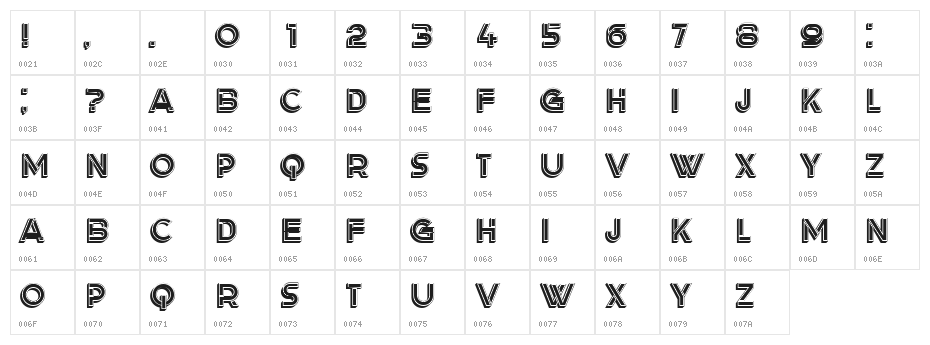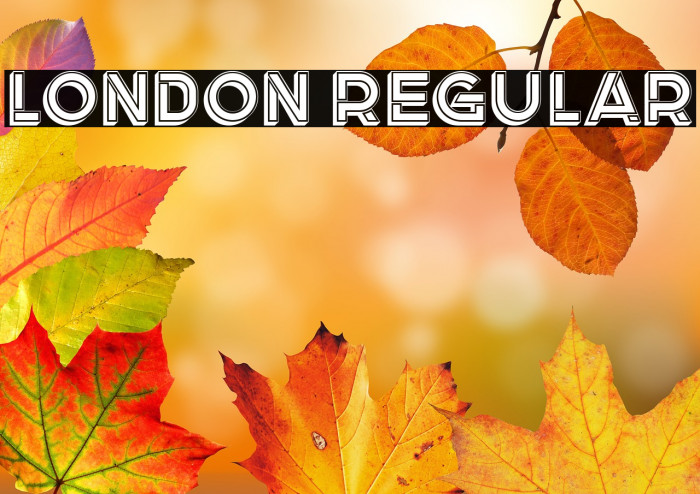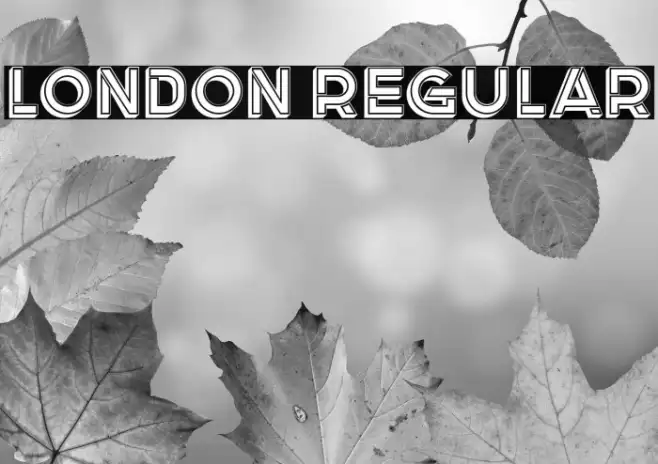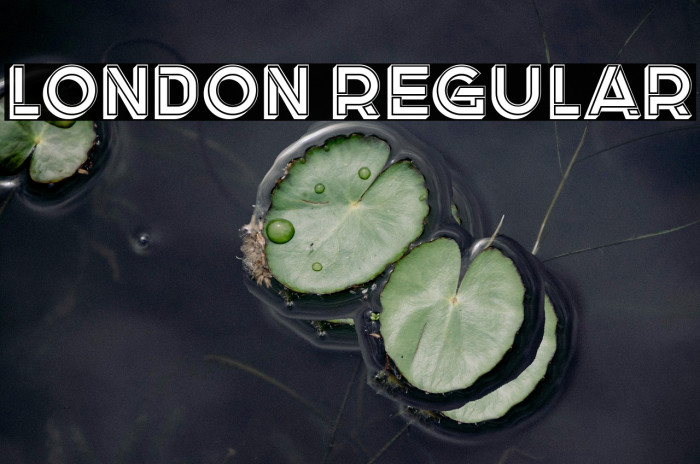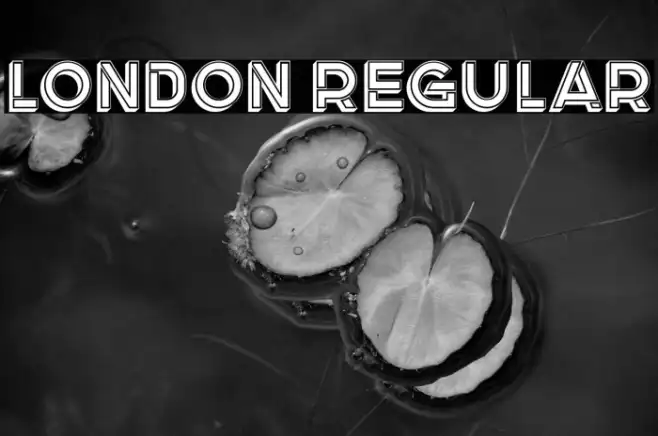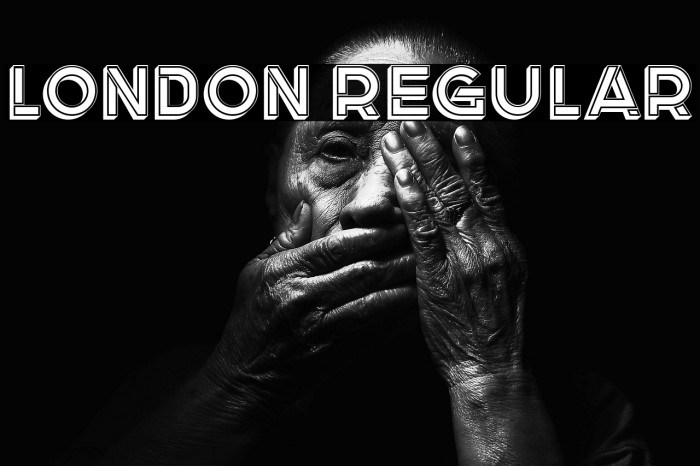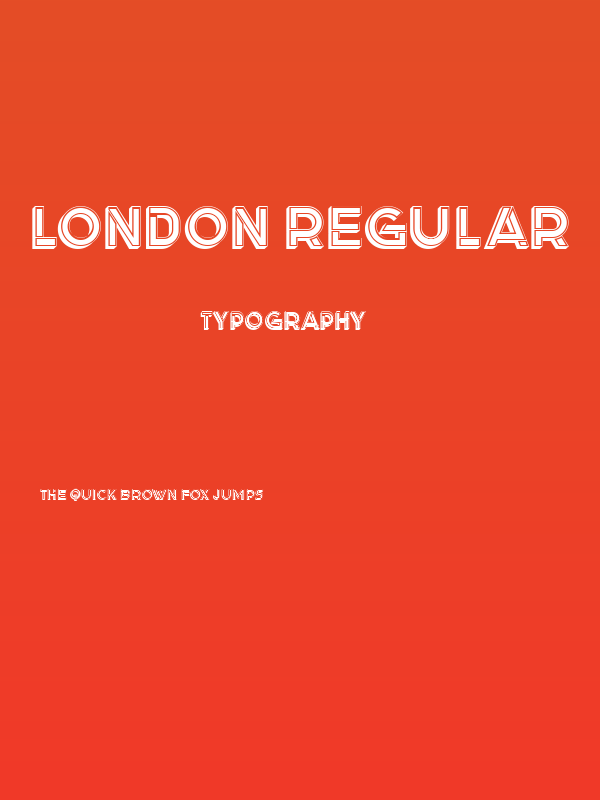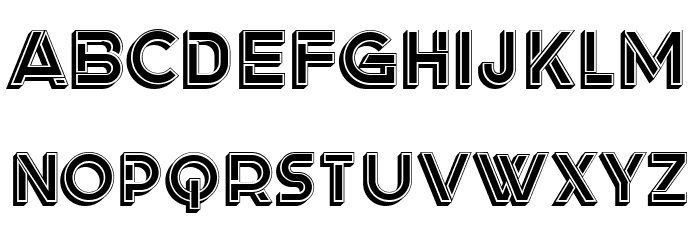
London Regular Font
London Regular Description
This font features a bold, geometric design with a distinct three-dimensional effect created by layered outlines. The characters are uppercase and have a strong, impactful presence, making them ideal for attention-grabbing headlines or titles. The design incorporates sharp angles and clean lines, giving it a modern and futuristic feel. The spacing between characters is consistent, ensuring readability while maintaining its unique style. The font's structure is robust, with each letterform exhibiting a sense of stability and strength. The numbers and special characters follow the same design principles, providing a cohesive look across all glyphs.
| Proposed Projects | Ideal for branding, posters, headlines, and any project requiring a strong visual impact. |